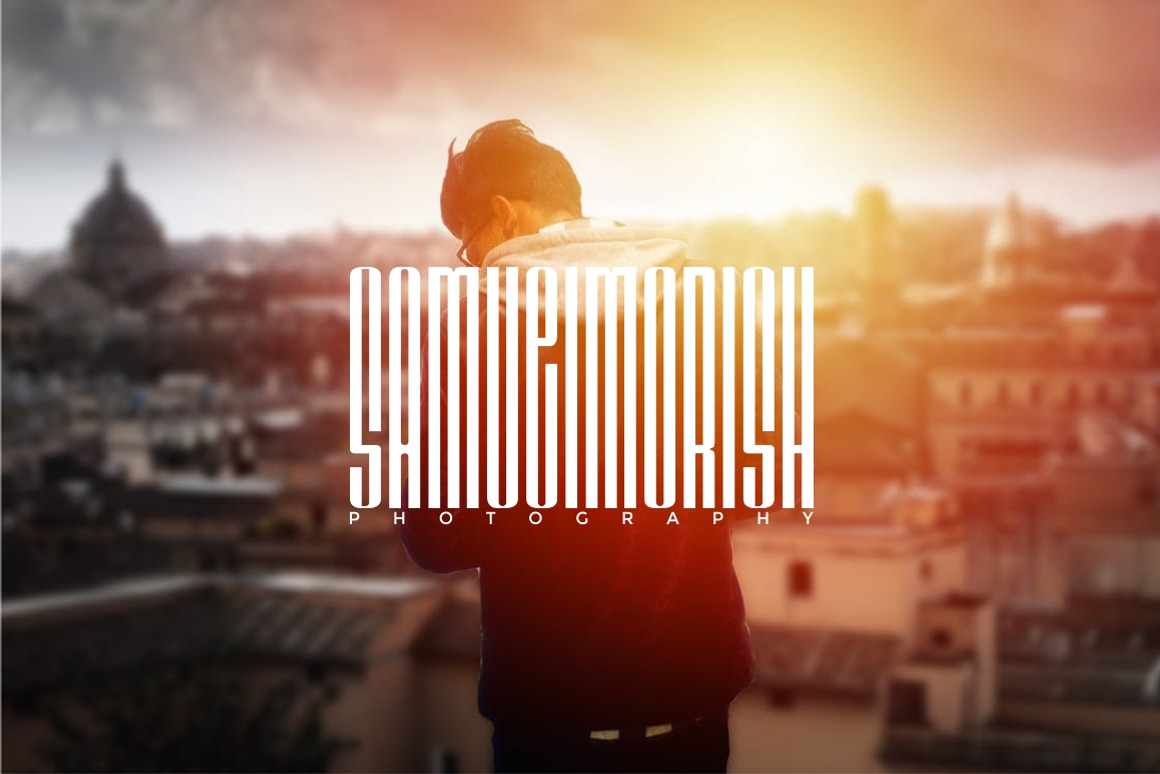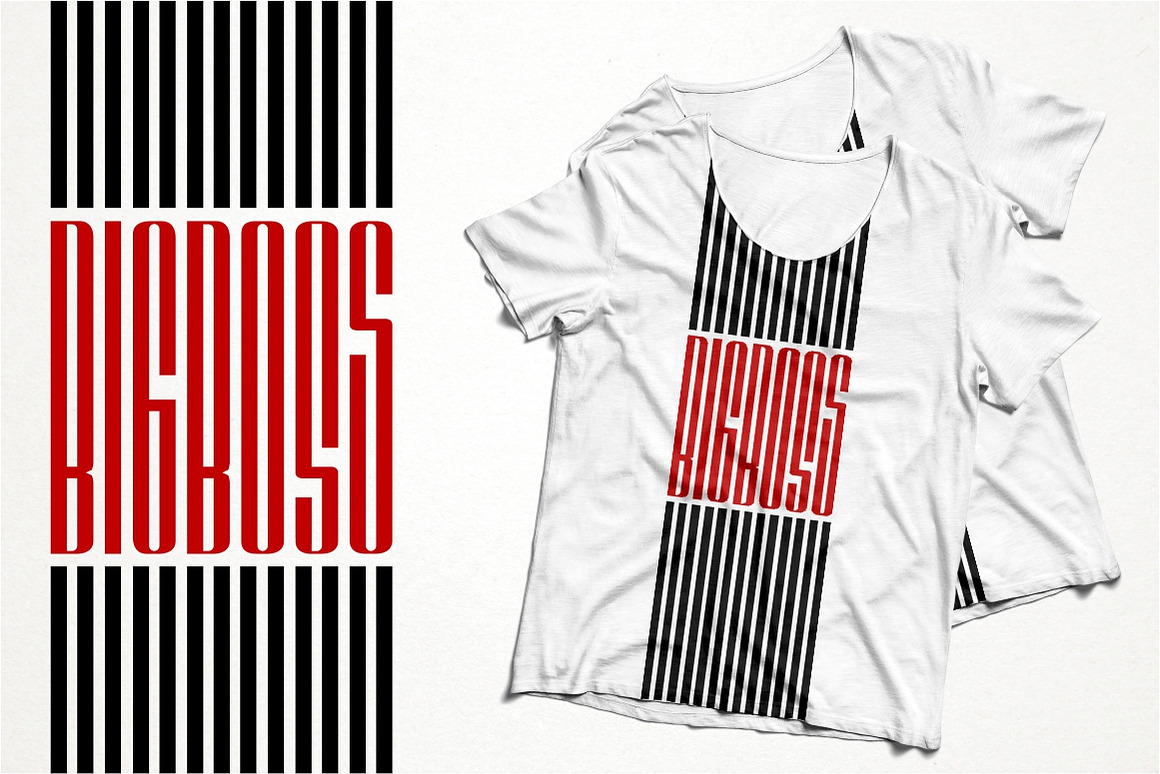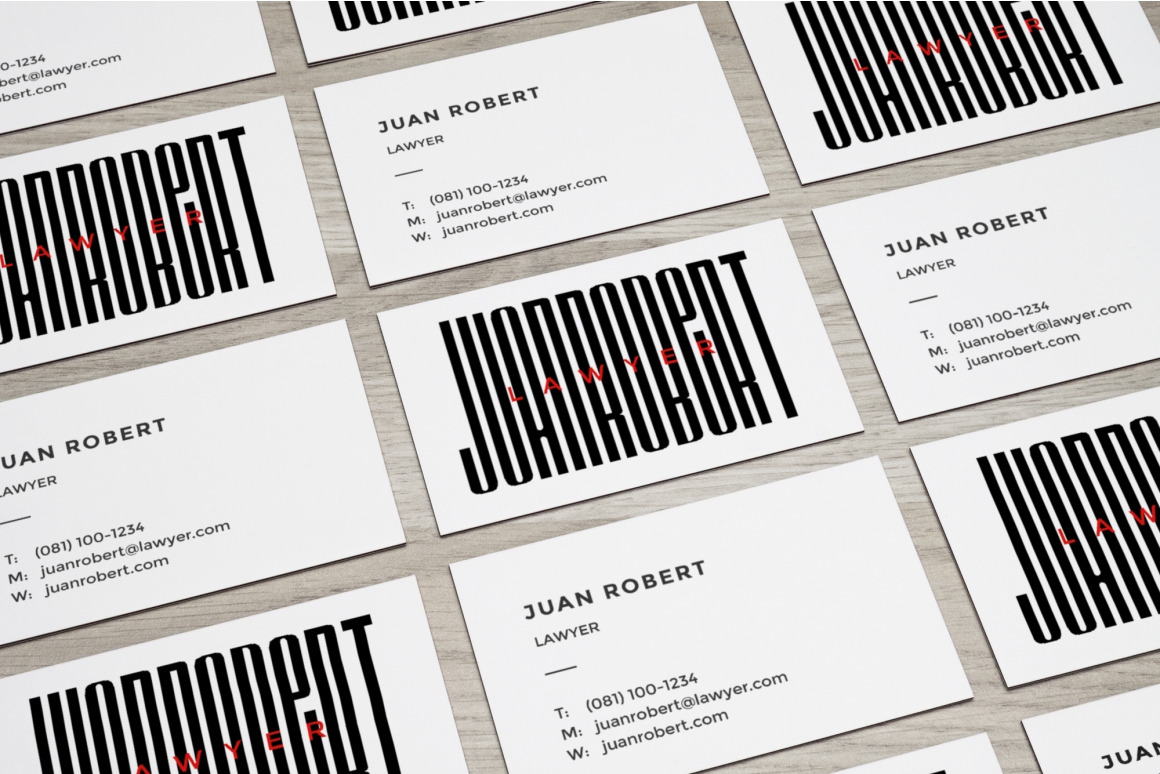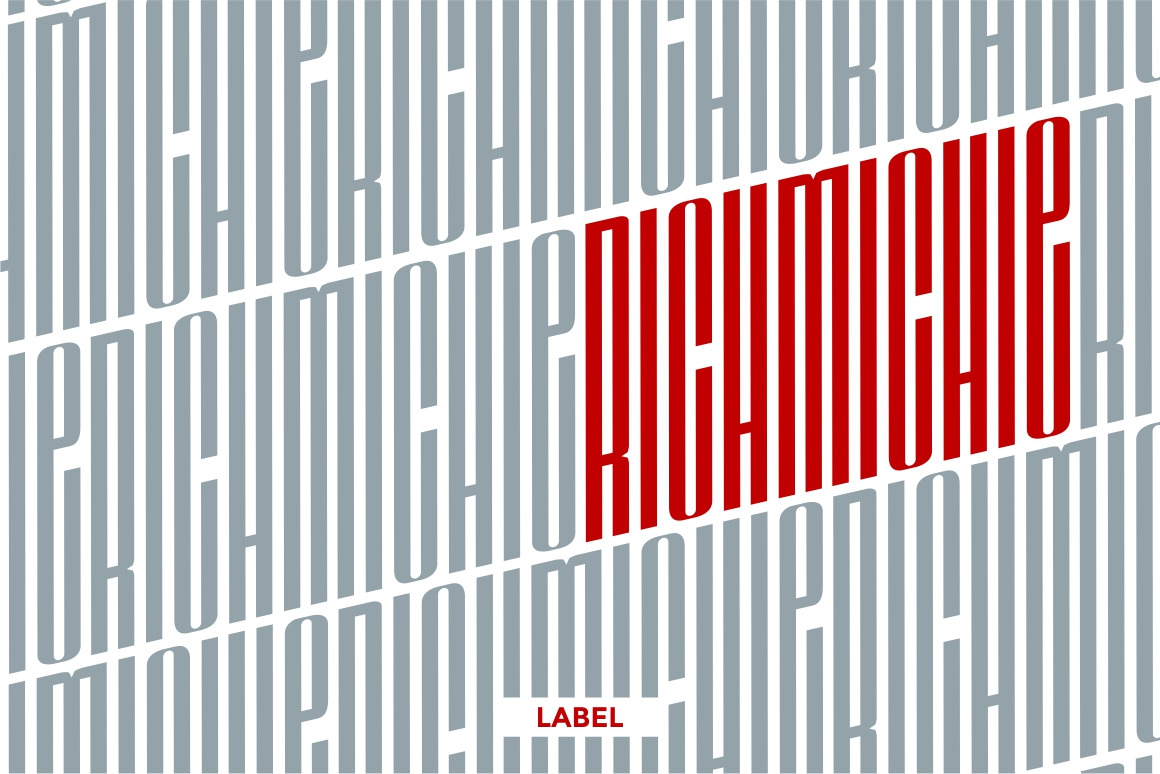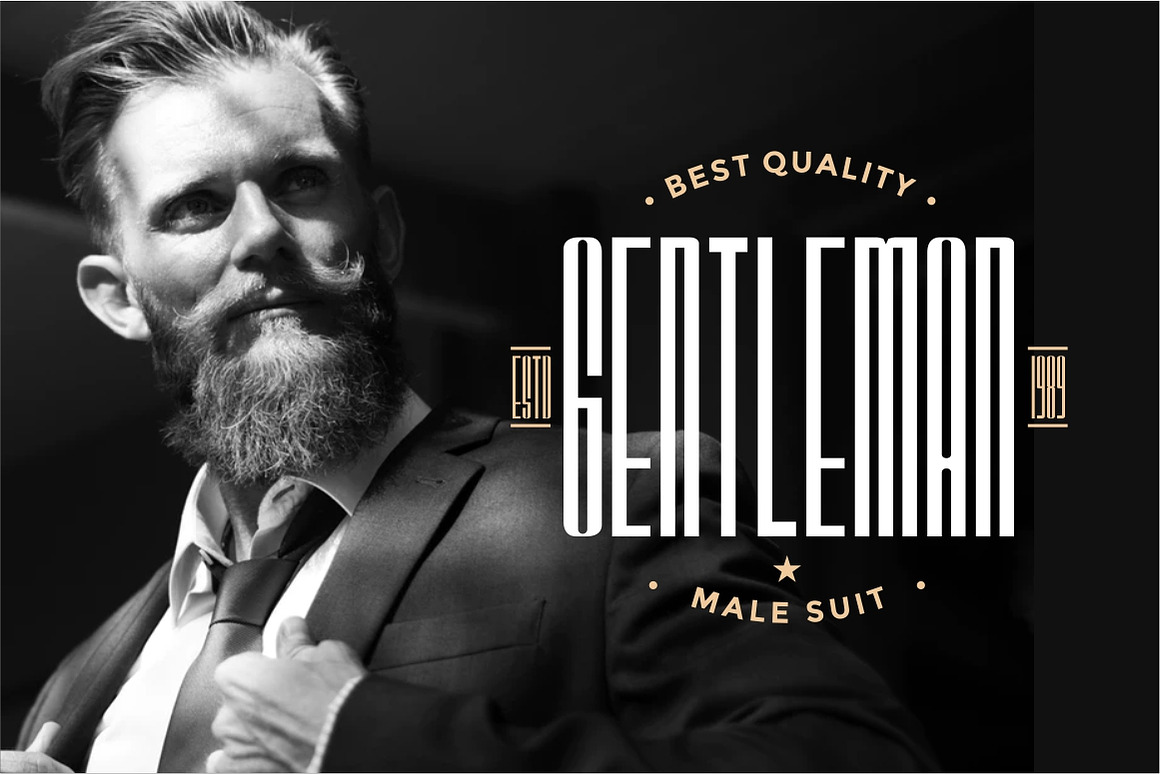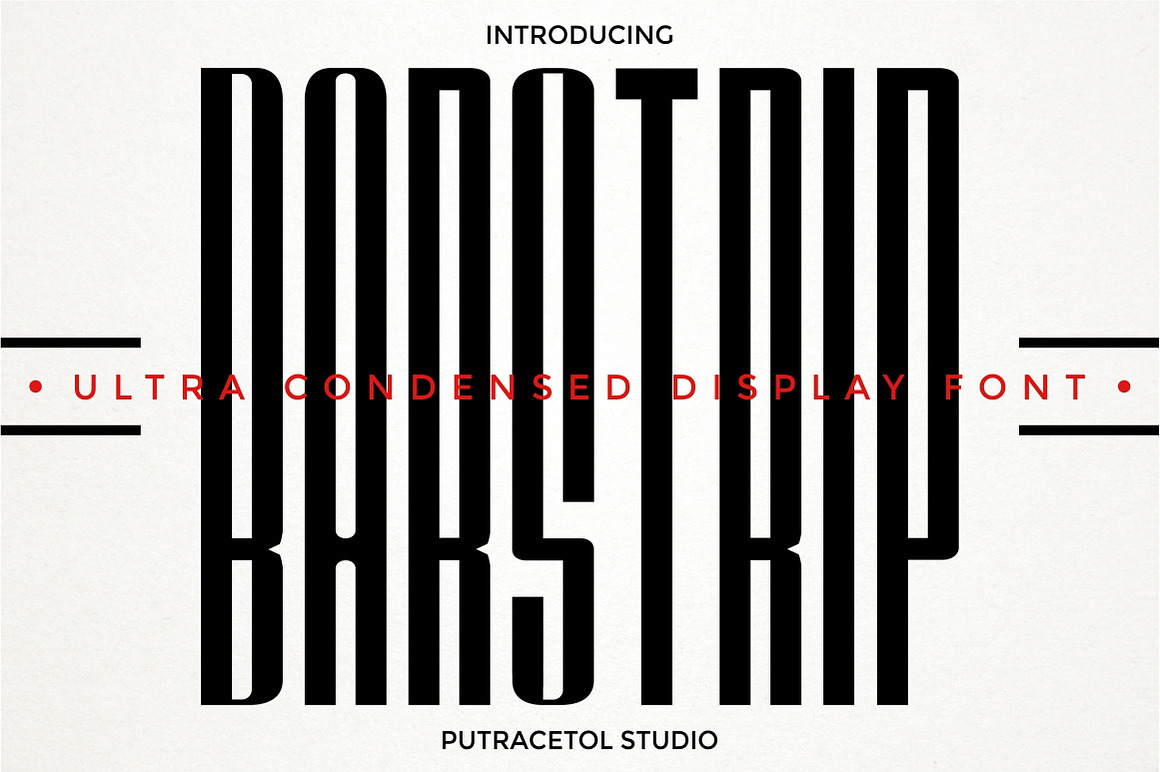
BARSTRIP - Ultra Condensed
Barstrip Ultra Condensed Font is perfect for space-constrained design layouts, narrow signage applications, compact advertising banners, vertical poster designs, tight column headlines, retail price tags, product labeling systems, industrial equipment markings, barcode-adjacent text, efficient packaging design, condensed magazine layouts, and streamlined projects that require ultra-narrow, space-efficient typography with maximum readability in minimal width applications.
What makes Barstrip Ultra Condensed Font so exciting is its extreme space efficiency and compressed elegance that maximizes typographic impact while occupying minimal horizontal space. This typeface features dramatically condensed letterforms with optimized proportions and enhanced vertical emphasis that creates powerful visual presence without sacrificing legibility in narrow applications. The font's ultra-condensed character and space-saving appeal make it perfect for design-constrained projects and efficiency-focused applications that need maximum typographic impact in the smallest possible footprint.
Maximize impact in minimal space with the compressed efficiency of Barstrip Ultra Condensed Font Free Download. This space-optimized typeface brings together extreme condensation with maintained readability, making it an essential tool for designers facing space constraints who need to create memorable, efficiently compact communications that deliver maximum message impact in narrow layouts and space-limited applications. The font's ultra-condensed character ensures optimal space utilization without compromising typographic quality.
Whether you're designing compact signage, space-efficient packaging, or narrow advertising applications, Barstrip Ultra Condensed Font delivers exceptional space optimization and compressed clarity that connects with audiences while maximizing available design real estate. Its dramatically narrow profile works exceptionally well in vertical applications and tight horizontal spaces where traditional fonts would be impractical or illegible.
The expertly compressed letterforms of Barstrip Ultra Condensed Font showcase the ultimate expression of space-efficient typography and condensed design principles. Each character has been meticulously engineered to maintain optimal legibility while achieving maximum horizontal compression, ensuring that your space-constrained communications remain crystal-clear and professionally effective even in the most challenging layout environments.